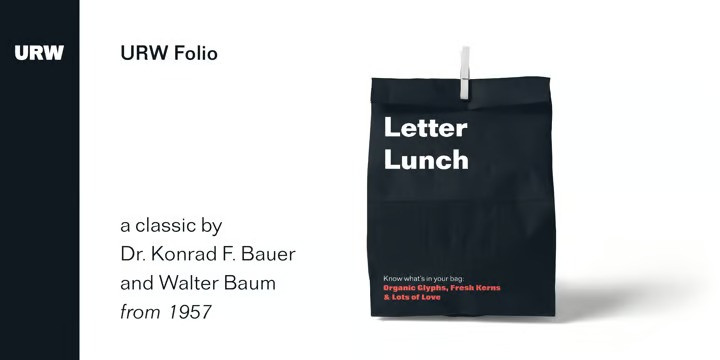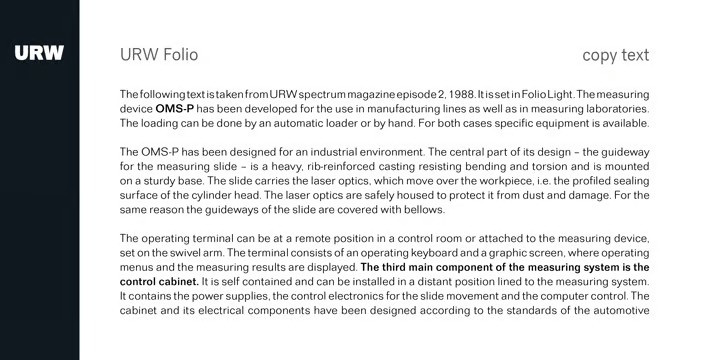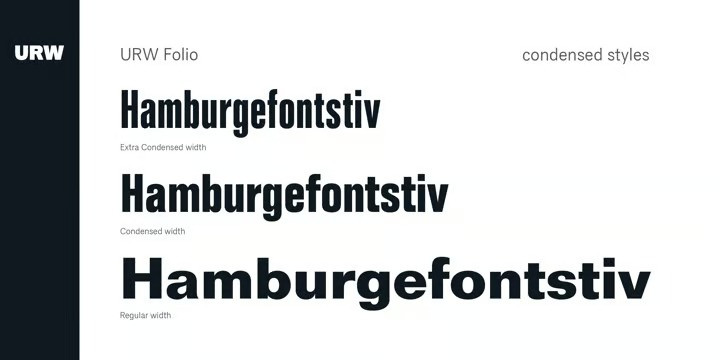
Folio Font
Looking for a unique, stylish, and fun font for your next project? Introducing Folio Sans Serif Font.
Folio Font Family was designed by Konrad Friedrich Bauer, Walter Baum and published by URW Type Foundry. Folio contains 10 styles and family package options. It can easily be matched to an incredibly large set of projects, so add it to your creative ideas and notice how it makes them stand out!